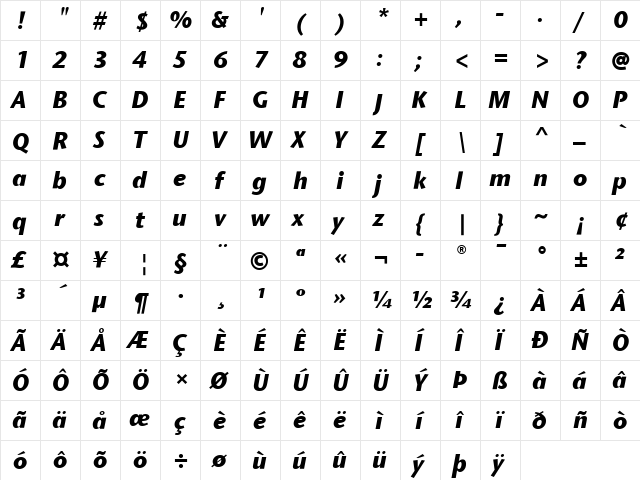
StoneSansITC Bold Italic
Bold Italic · International Typeface Corporation  ·
Design Context for StoneSansITC Typeface
StoneSansITC offers clean, dependable letterforms without strong stylistic allegiance, making it a practical choice for designers who need flexibility. The slanted form adds forward momentum and visual energy. The heavy weight commands attention and anchors typographic hierarchies.
Pro Tip: Use StoneSansITC for emphasis, pull quotes, and subheadings where its slanted energy can add rhythm to the layout.